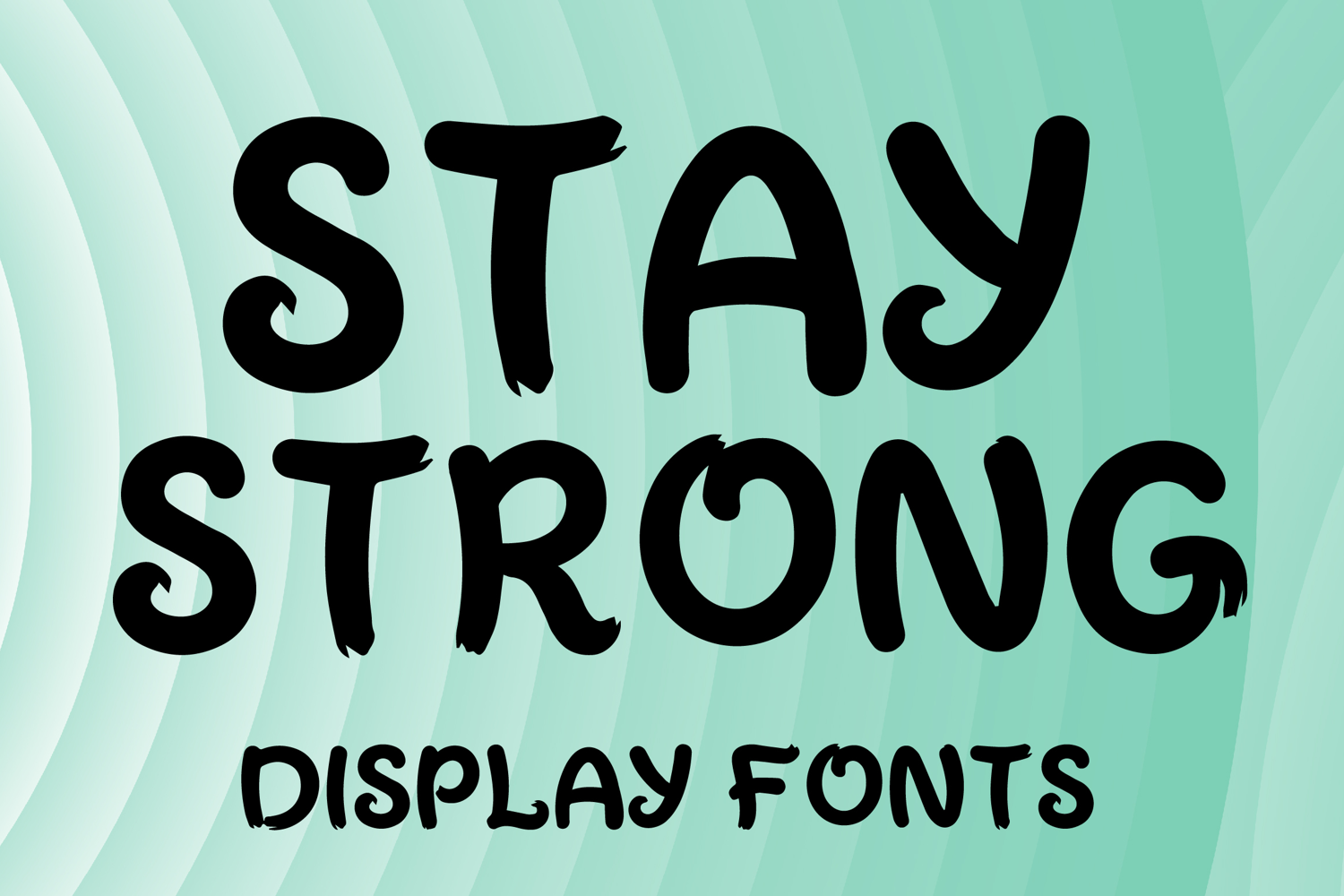
STAY STRONG
STAY STRONG is a bold display font with a playful handcrafted style and confident modern character. Its uppercase letterforms feature thick smooth strokes, rounded edges, and subtle brush-like details that create a strong, friendly, and eye-catching look. Designed with uppercase letters A–Z and numbers 0–9, STAY STRONG is perfect for branding, posters, packaging, quotes, logos, social media graphics, and creative projects that need a bold and memorable statement.